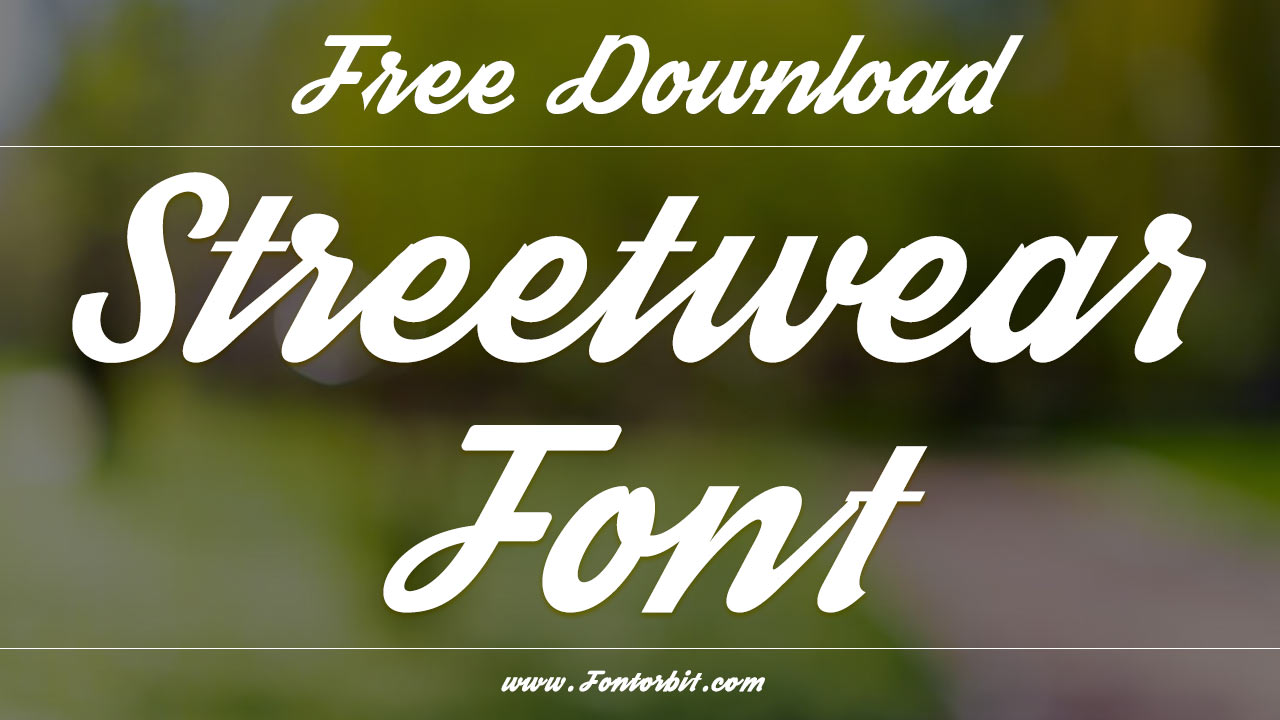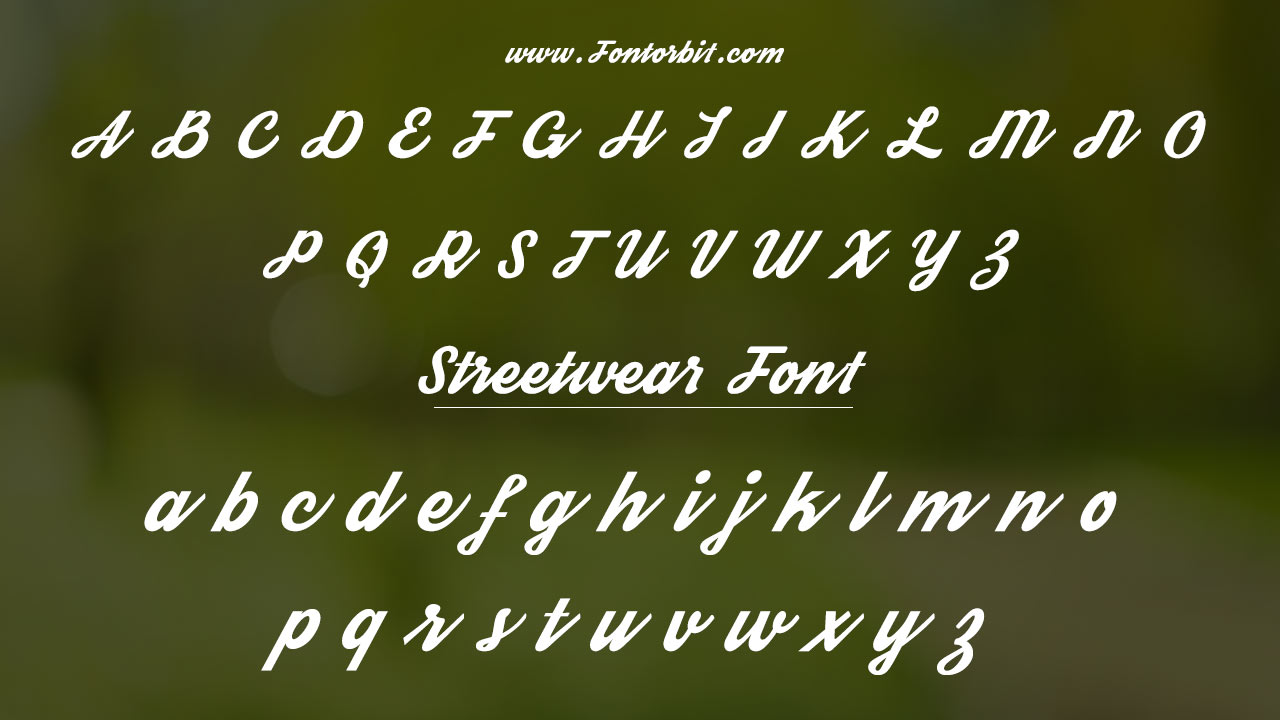
Streetwear font Designed by Artimasa Studio and first released in the early 2010s, the Streetwear Font embodies the bold, edgy aesthetic of street culture.
Drawing inspiration from 1960s and 1970s retro fonts, this typeface belongs to the script fonts family and is celebrated for its versatility. It’s particularly popular among designers crafting logos, banners, posters, and other branding projects. With its bold strokes and dynamic characters, this typeface has become a go-to for streetwear designs and related creative endeavors.
- Ideal for streetwear brands, logos, and merchandise.
- Combines the retro charm of vintage fonts with modern appeal.
- Includes Streetwear’s alternate characters for added design flexibility.
| Name | Streetwear Font |
|---|---|
| Style | Retro-inspired, script font |
| Designer | Artimasa Studio |
| Type | Display font, Script font |
- Streetwear Book
- Streetwear-Regular
- Streetwear-Light
- Streetwear Extra Light
Where Streetwear Font Is In Use
The Streetwear Font is a versatile typeface widely used in a variety of creative projects, such as:
- Branding: Ideal for streetwear brands and merchandise designs.
- Posters and Banners: Adds boldness to promotional material.
- Logos: Perfect for creating impactful, memorable logos.
- Packaging: Enhances the urban, modern aesthetic of products.
- Typography Projects: Works well for retro or art deco fonts inspired layouts.
- Streetwear Designs: A favorite for t-shirts and other apparel.
- Digital Illustrations: Complements vibrant and dynamic artwork.
1.What Is The Streetwear Font?
The Streetwear Font is a retro-inspired script font designed by Artimasa Studio.
3.What Type Of Font Is Streetwear Font?
It is a display font from the script fonts family with a retro vibe.
5.What Makes Streetwear Font Suitable For Streetwear Brands?
Its bold strokes and dynamic characters align perfectly with street culture aesthetics.
6.Does Streetwear Font Have Alternate Characters?
Yes, the font includes Streetwear’s alternate characters for added flexibility.